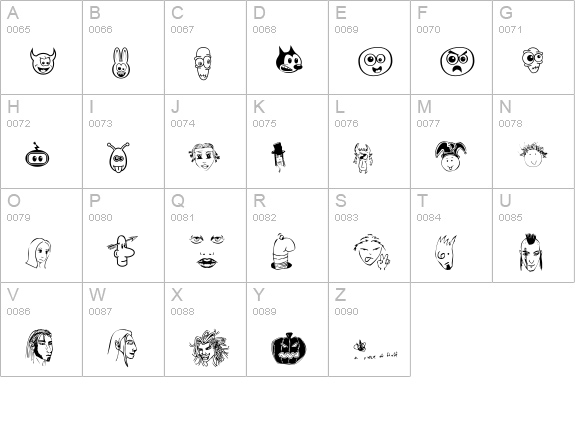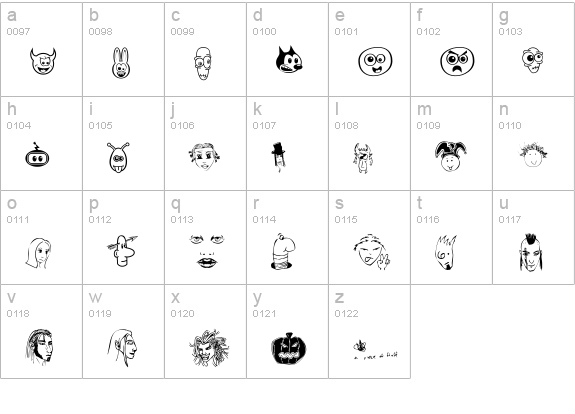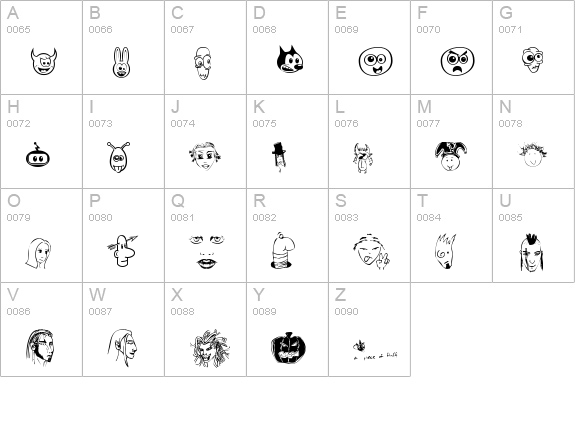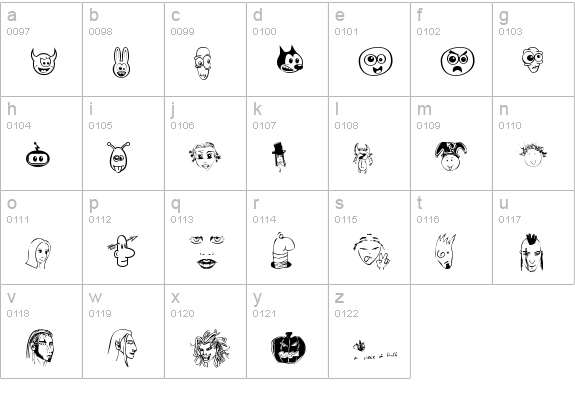
Fred Font Details
Fred font is a modern and stylish typeface that exudes sophistication and elegance. With its sleek lines and contemporary design, Fred font is perfect for a wide range of design projects, from branding to editorial design. This versatile font is sure to make your work stand out and leave a lasting impression on your audience. The best part about Fred font is that it is completely free to download at FontsMarket.com. Now you can access this beautiful font without any cost, making it a valuable addition to your font library. Don't miss out on the opportunity to enhance your designs with the timeless appeal of Fred font. Download it today and start creating stunning projects with ease.